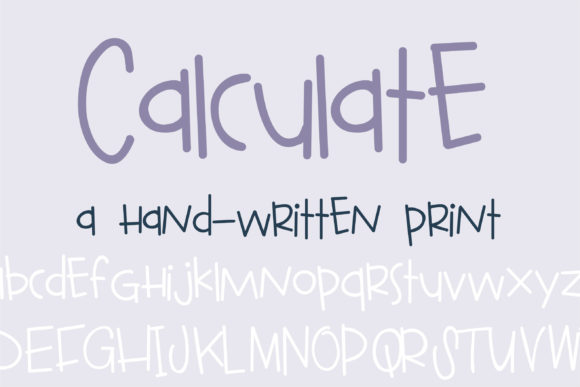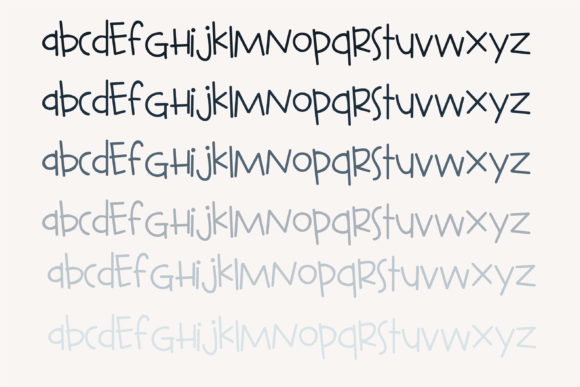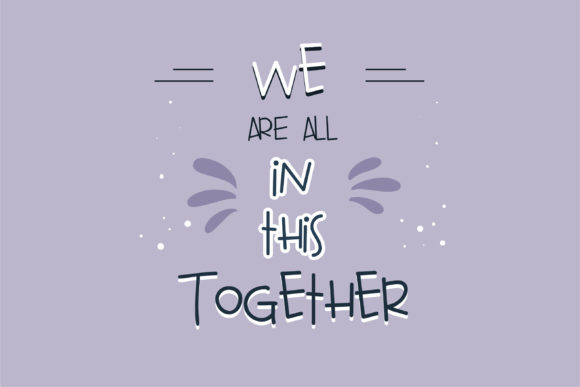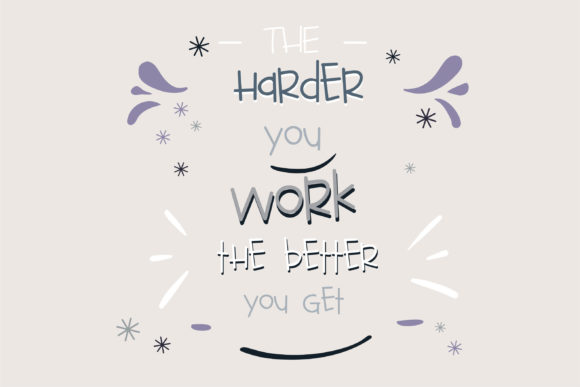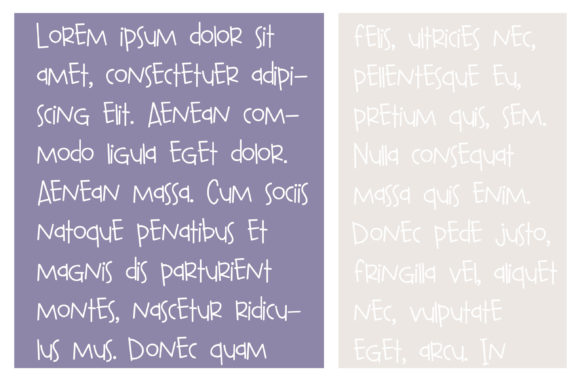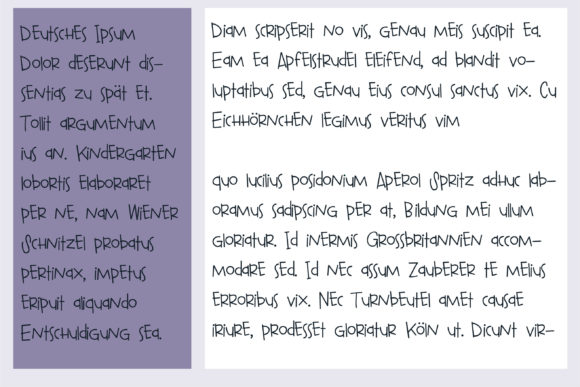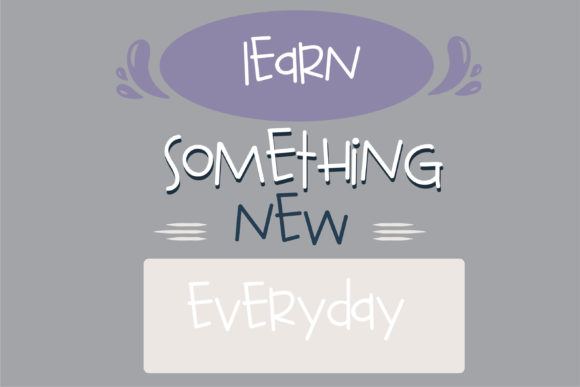
HomeScript FontsPN Calculate Font Script Fonts PN Calculate Font FacebookXPinterestWhatsApp 1 of 7 PN Calculate Font Poster 2... PN Calculate Font Poster 3... PN Calculate Font Poster 4... PN Calculate Font Poster 5... PN Calculate Font Poster 6... PN Calculate Font Poster 7... About PN Calculate Font This fun, hand-written, sans serif, is very youthful and fun. Bold version included. DOWNLOAD NOW People also explored Cute Insects Font Linnea Font Amaryllis Font Growing Garden Font Next Time Font Achika Majorette Font Gedang Goreng Font Cathylan Font 317 0 TagsPN Calculate Font Previous articleZP Cracker Bread FontNext articleBryan Abimanyu Font LEAVE A REPLY Cancel reply Comment: Please enter your comment! Name:* Please enter your name here Email:* You have entered an incorrect email address! Please enter your email address here Website: Save my name, email, and website in this browser for the next time I comment. Personal Use Free Gratisan Personal Use Free Read more about this font Anti Personal Use Free Read more about this font Broodfath Personal Use Free Read more about this font Elliane Personal Use Free Read more about this font BLOG How to Cut Any Font on Cricut: Convert a Font to SVG (Free) Turn any font into a clean SVG so it cuts crisp on Cricut - a quick 3-step workflow using a free font-to-SVG tool. Modern Sans-Serif Fonts That Brands Love in 2025 Best Fonts for T-Shirt Design – Top 2025 Picks How to Install and Use Fonts on Windows, macOS, and Web Projects